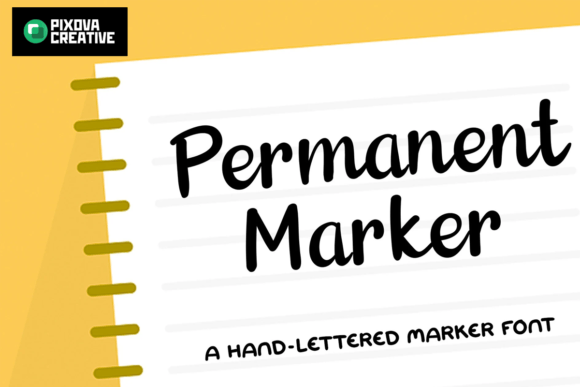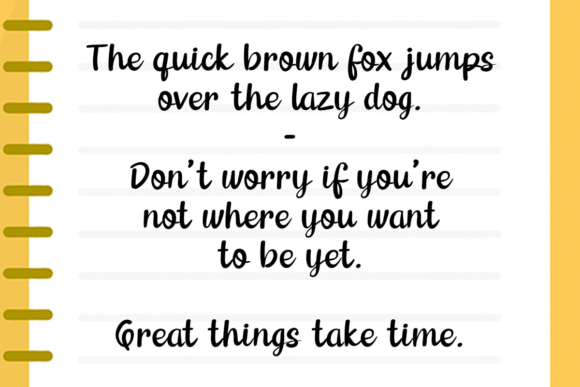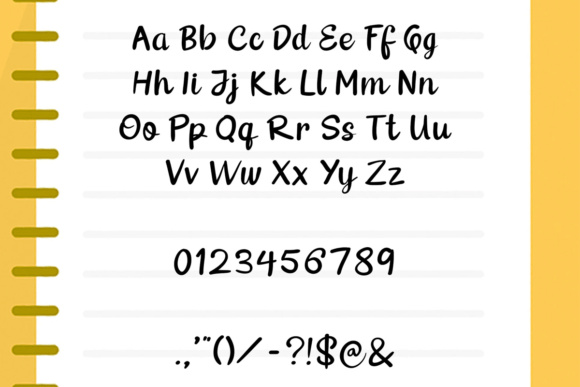
Permanent Marker Font: A Playful Handwritten Font for DIY Crafts
About the Permanent Marker Font
We are excited to introduce Permanent Marker Font, a must-have typeface for any serious designer. Imagine letters that look like they’ve been drawn with a bold, permanent marker. Permanent Marker font is playful and handmade, with each letter shaped like it’s been painted by hand. It’s a fun, casual style that stands out on posters, invitations, and anything you want to add a touch of personality to!
Its bold, hand-drawn aesthetic makes it ideal for headlines, short text blocks on posters, and playful branding projects where a casual, approachable feel is desired. Avoid using it for body text or lengthy paragraphs; the informal nature and varying stroke weights would hinder readability. Consider pairing it with a clean sans-serif like Open Sans for a balanced contrast, or a more geometric sans-serif for a modern edge.
The font’s core personality is undeniably fun and friendly, with a touch of rebellious energy. Think youthful brands, quirky businesses, or events that celebrate individuality and creativity. It would work exceptionally well for packaging of artisan products or children’s items.
Pairing it with a script font like Great Vibes could add a layer of sophistication while maintaining the hand-drawn feel, but only if used sparingly. Avoid pairing it with overly formal or thin serifs, which would clash with its bold character.
Permanent Marker Font Usage Examples
Permanent Marker Font Example